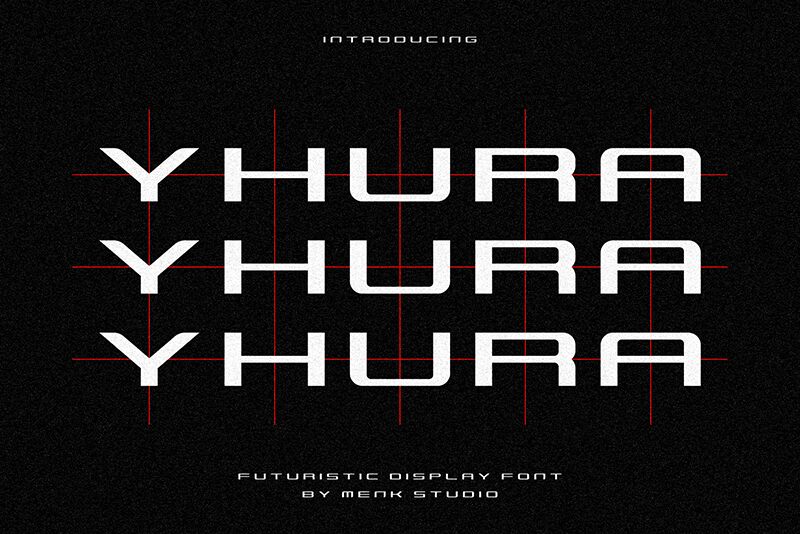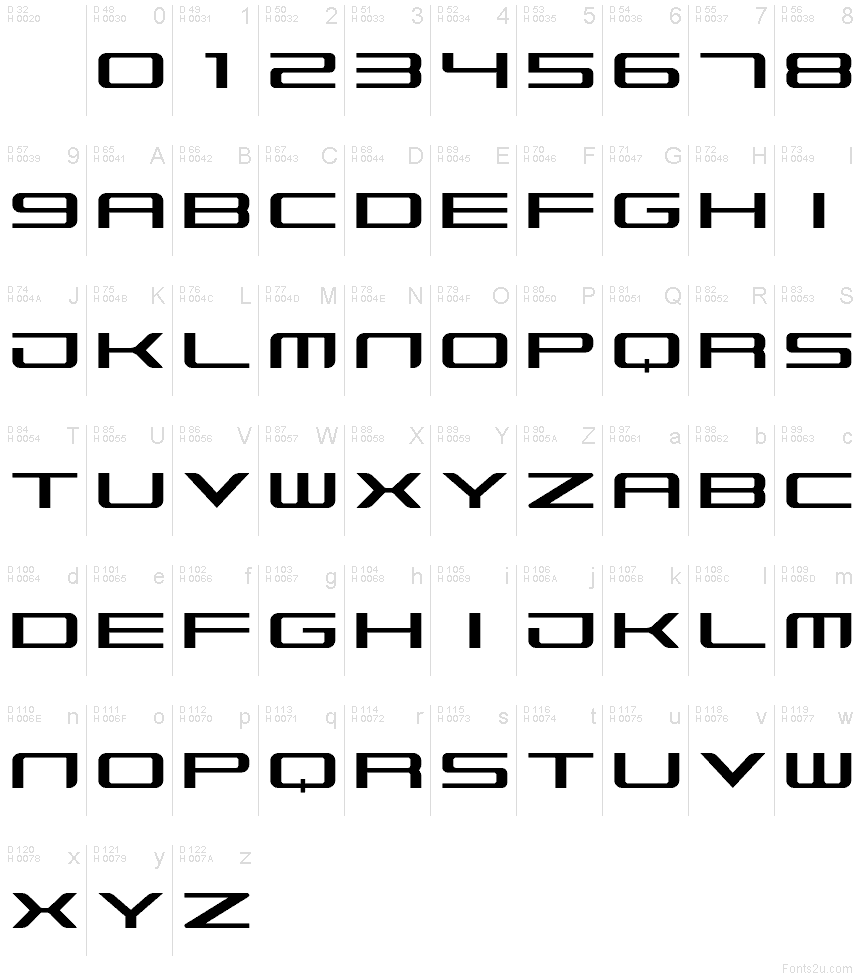
Yhura Normal
Yhura font by Menk Type is a free techno display typeface. Its squared skeleton and thick, even strokes carve out smooth, rounded interior windows that feel like light panels cut into metal—futuristic without turning cold. The rhythm is bold and unbroken, so words lock together like modular parts, delivering instant impact in a tight, machined voice.
Using Yhura, headlines snap on for sci‑fi posters, esports branding, game titles, gadget packaging, tech event graphics, and album covers. This free font thrives at large sizes with a touch of tracking to let those rounded cavities glow; pair it with a clean geometric sans in regular weight to handle supporting copy.